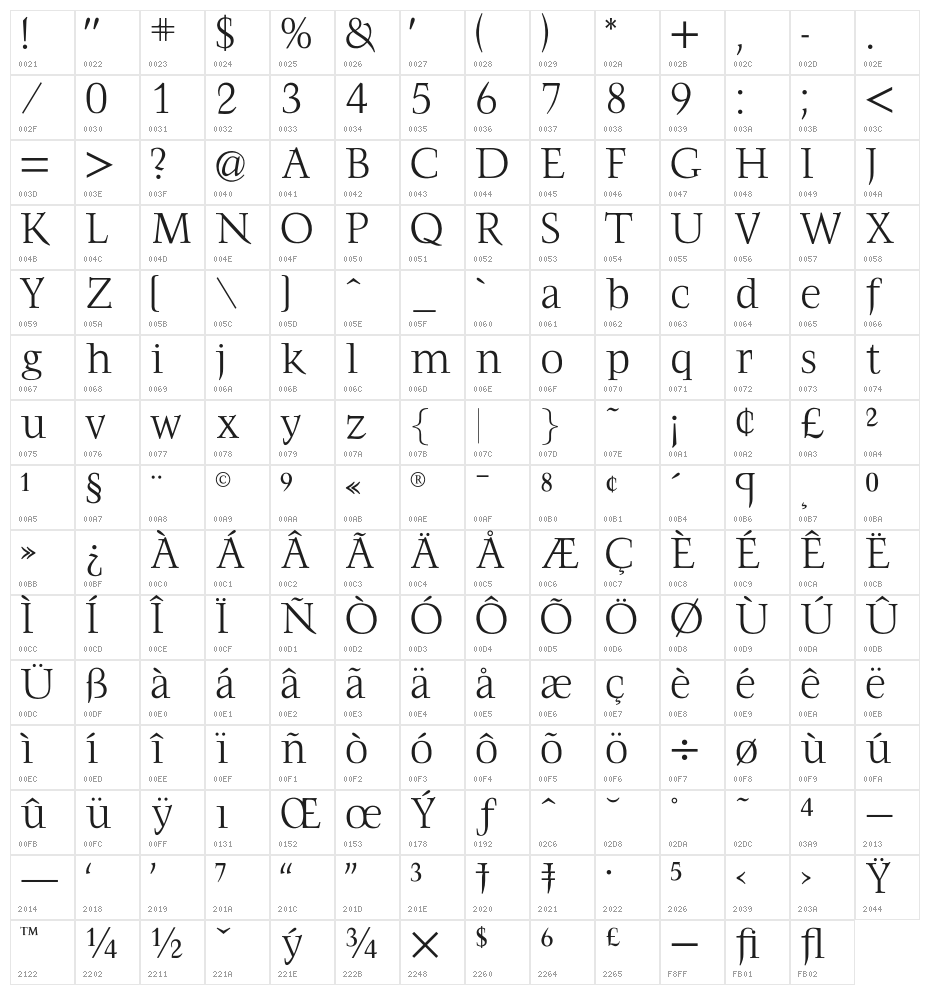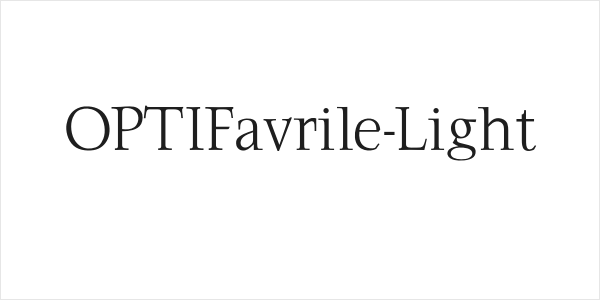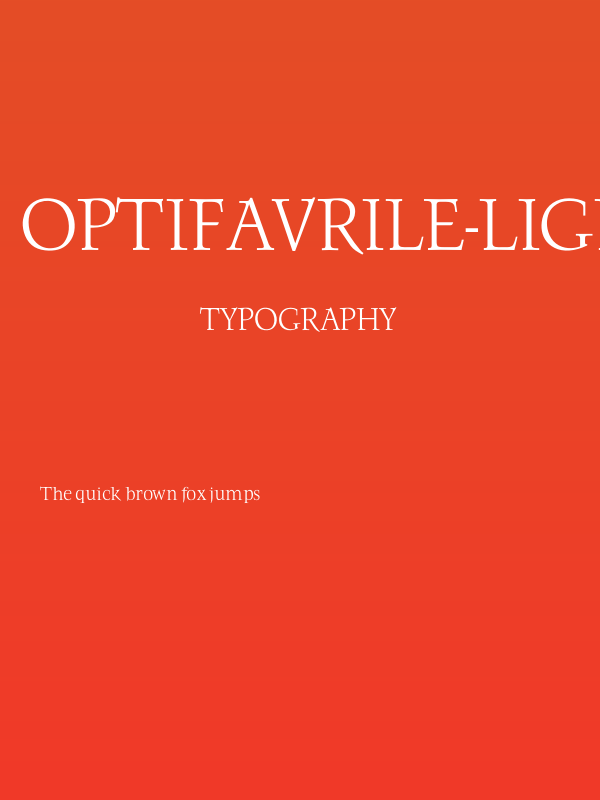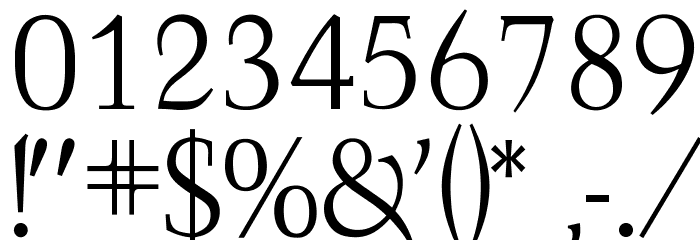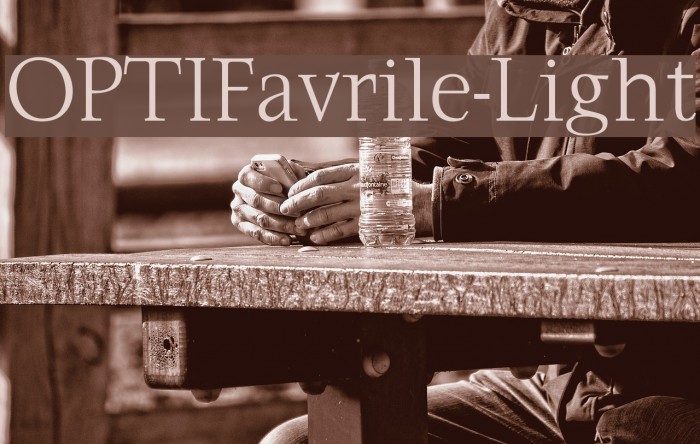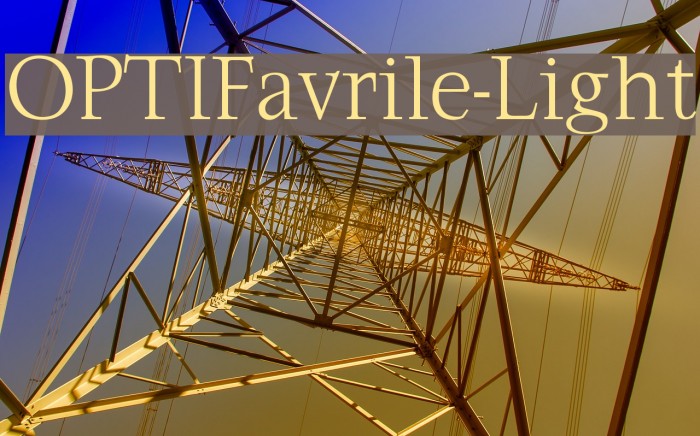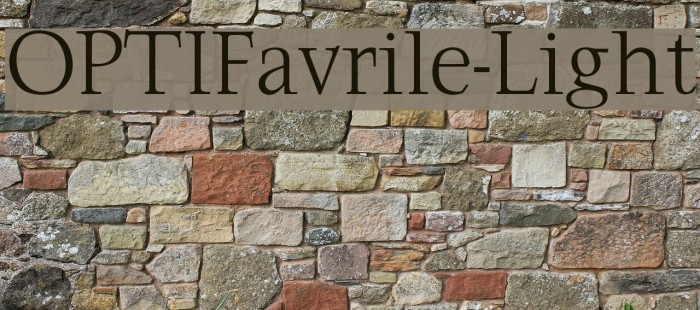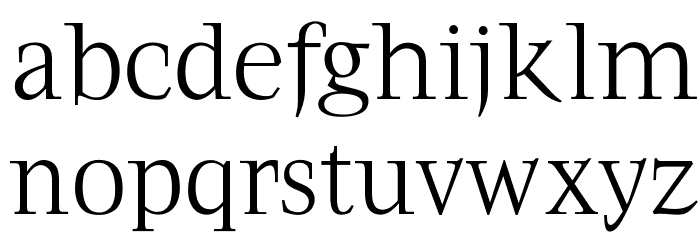
OPTIFavrile-Light Font
OPTIFavrile-Light Description
This font exhibits a classic serif style with elegant, thin strokes and a refined appearance. The uppercase letters are well-proportioned, featuring slightly elongated serifs that add a touch of sophistication. The lowercase letters maintain a consistent flow, with gentle curves and a balanced x-height, enhancing readability. The numerals are clear and distinct, with a traditional design that complements the overall aesthetic. Special characters are crafted with precision, maintaining the font's cohesive look. This font's light weight and high contrast between thick and thin strokes make it suitable for elegant and formal designs.
| Proposed Projects | Ideal for formal invitations, editorial design, luxury branding, and elegant website headers. |